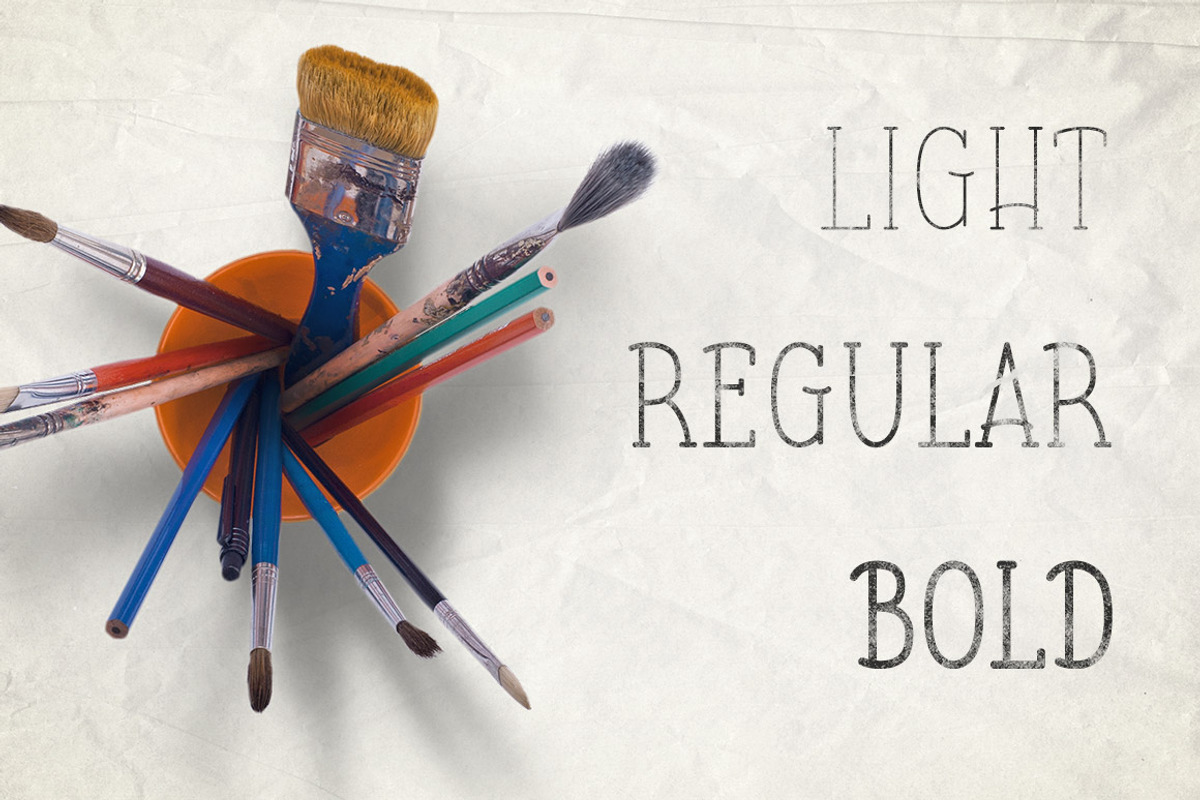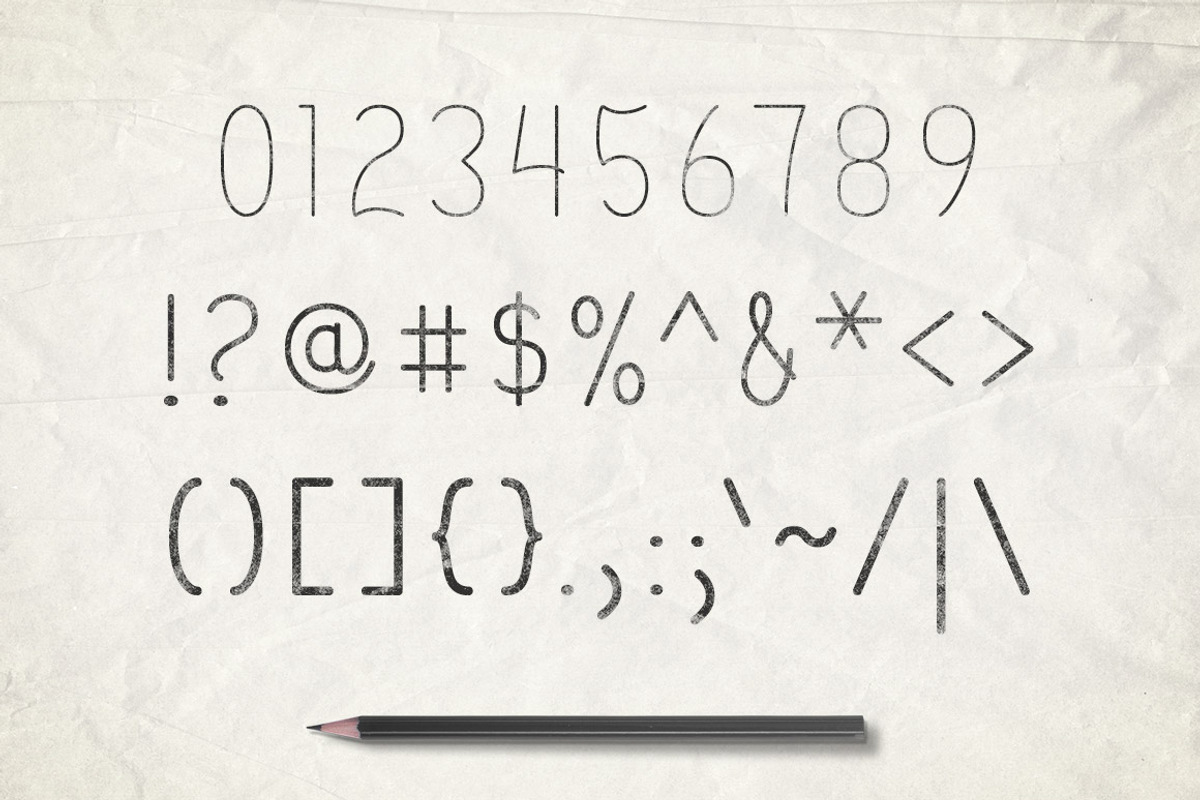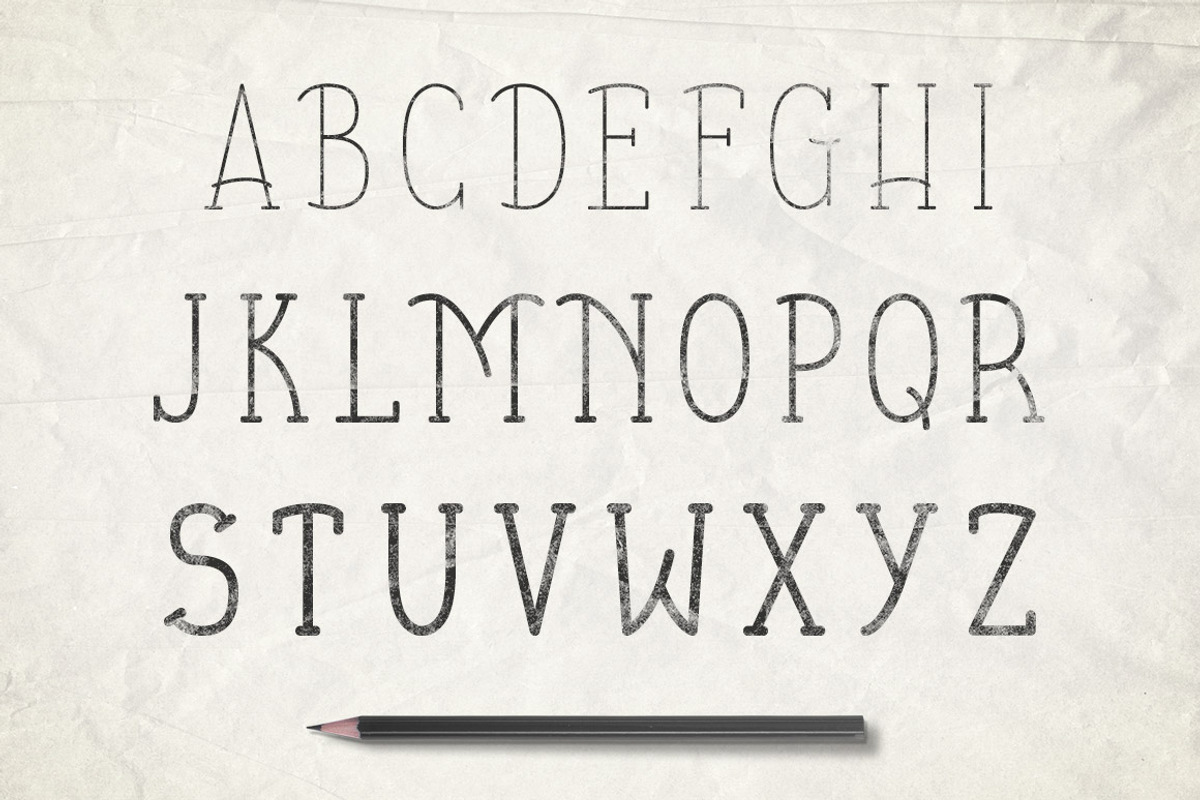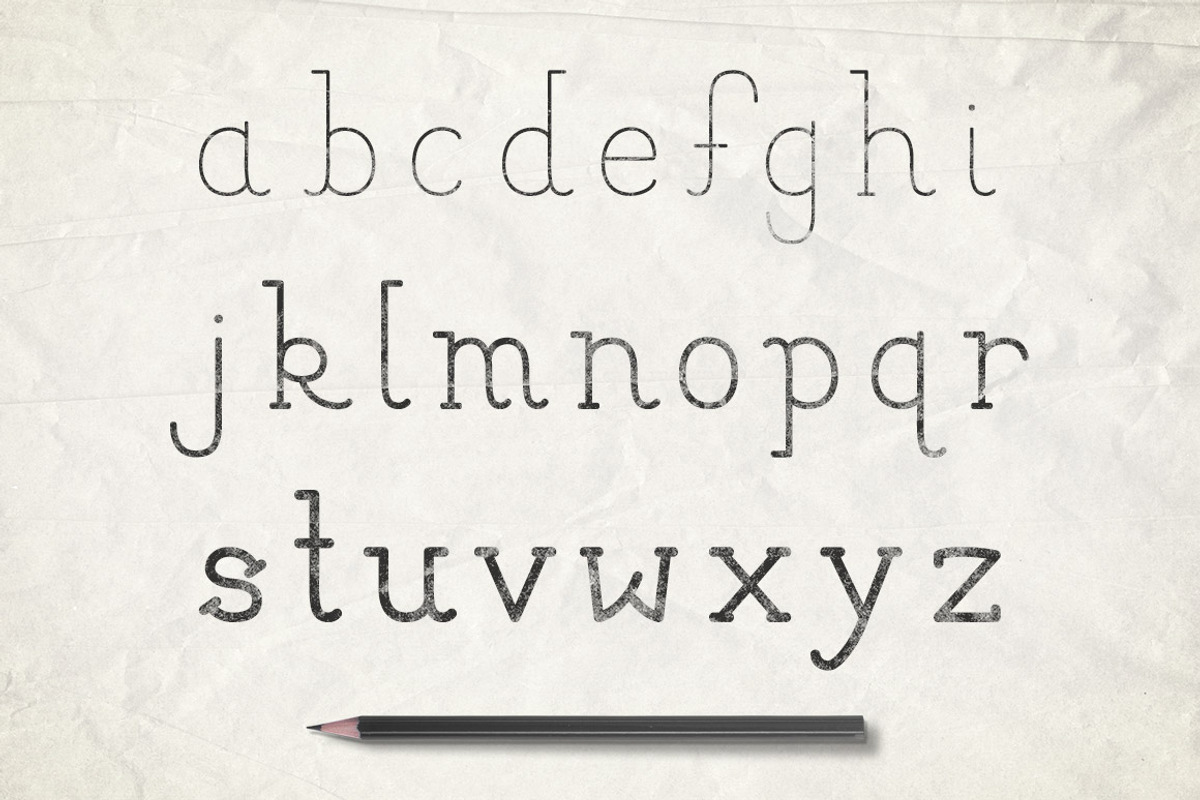
Wendell Font Family
Wendell Font Family by Design Panoply is a font selected for branding, posters, packaging, typography.
- It comes in 3 weights: light, regular, and bold, and includes uppercase letters, lowercase letters, numbers, punctuation, and a selection of
- All included glyphs are shown in the preview images.
- Wendell Light
- Wendell Regular
- Wendell Bold
Wendell Font Family by Design Panoply fits naturally into Branding, posters, packaging, typography.